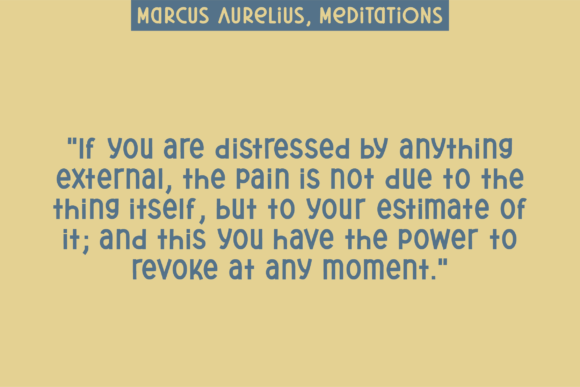
Introduction to Limoncello Font
Have you ever found yourself scribbling down a quote or a thought that sparks creativity, only to realize that it’s the imperfections that make it truly beautiful? That’s exactly what inspired the creation of the Limoncello Font, a natural handwritten font that captures the essence of handwritten notes and quotes.
As designers, we’re always on the lookout for high-quality design resources that can elevate our creative projects. The Limoncello Font is a game-changer, offering a unique and creative solution for designers who want to add a personal touch to their work. With its transparent background and free download option, this font is a must-have for any design enthusiast.
Whether you’re working on a project that requires a touch of whimsy or a more sophisticated look, the Limoncello Font is the perfect addition to your design arsenal. Its versatility and unique character make it a valuable asset for designers who want to stand out from the crowd.
Key Features of Limoncello Font
- Unique characteristics include intricate details and a vibrant citrus-inspired design
Honest Review: Limoncello Font
I recently stumbled upon the Limoncello Font, and I must say it’s a great addition to any designer’s arsenal. As a creative professional, I’m always on the lookout for high-quality design resources that can elevate my projects.
One of the things I love about Limoncello Font is its versatility. It’s perfect for any creative project that requires a modern and sophisticated touch. The font’s clean lines and sleek design make it an excellent choice for logos, branding materials, and even digital displays.
Overall, I’m impressed with the Limoncello Font. It’s a solid design resource that’s perfect for designers who want a high-quality font without breaking the bank. With its sleek design and transparent background, it’s sure to elevate any creative project.